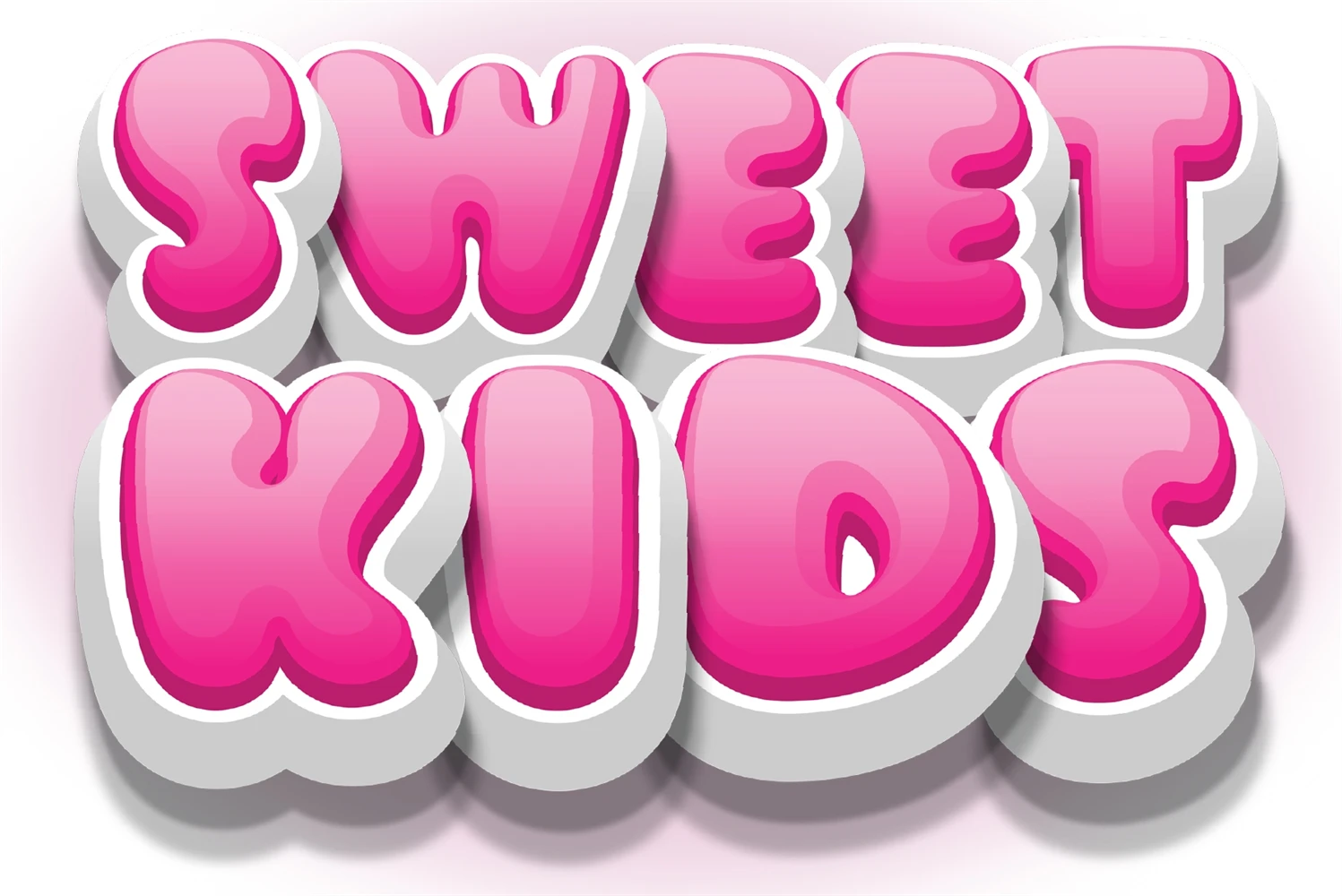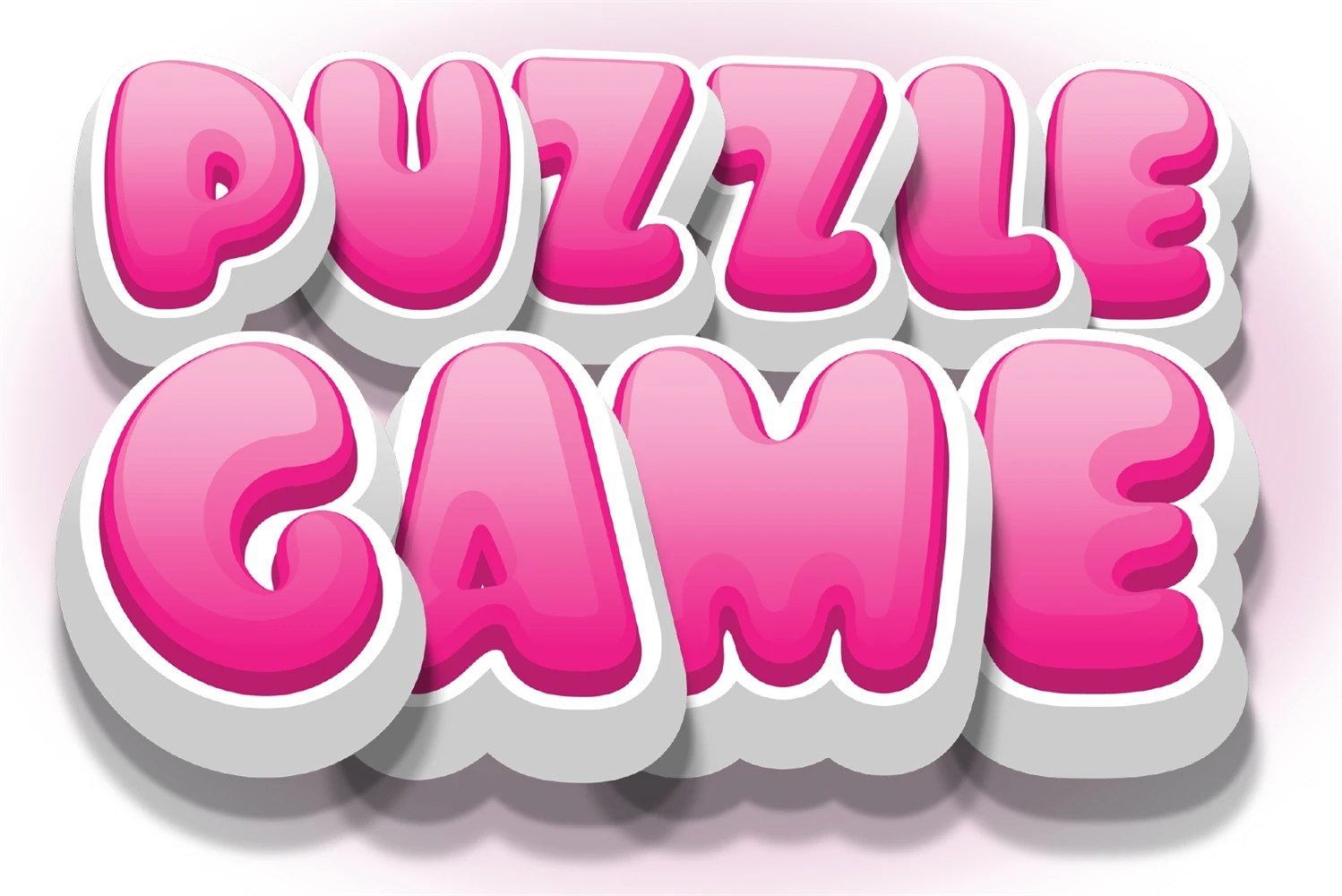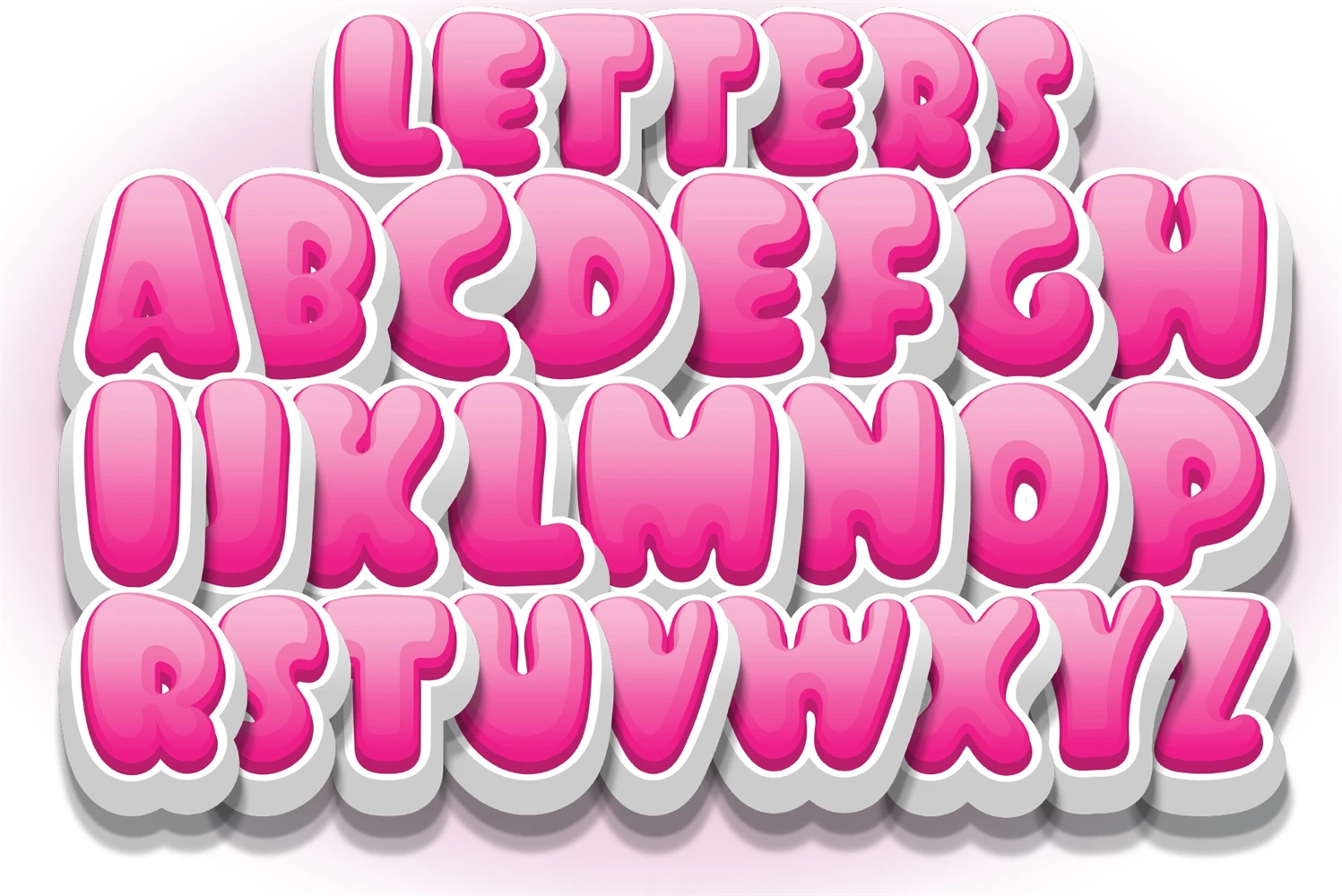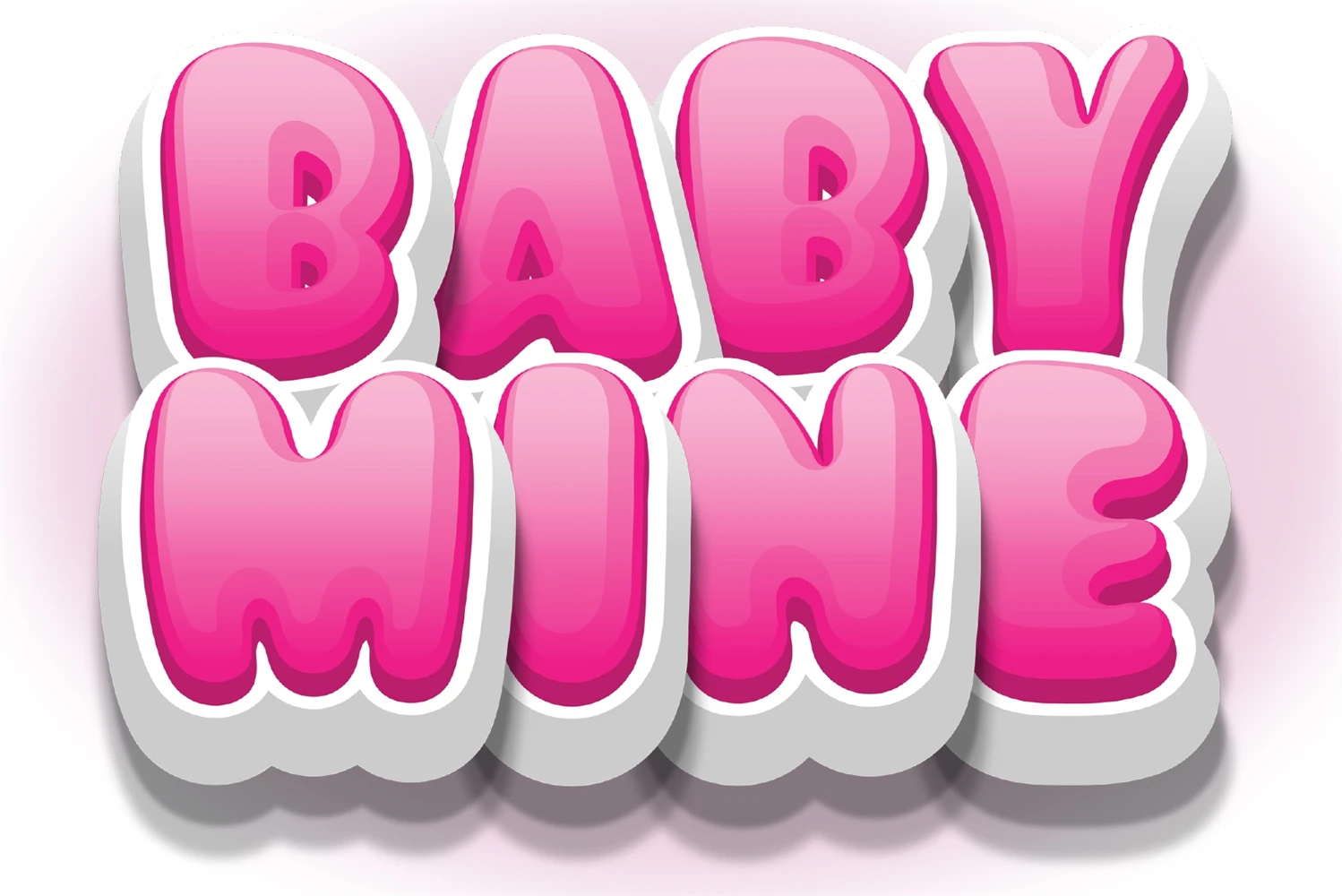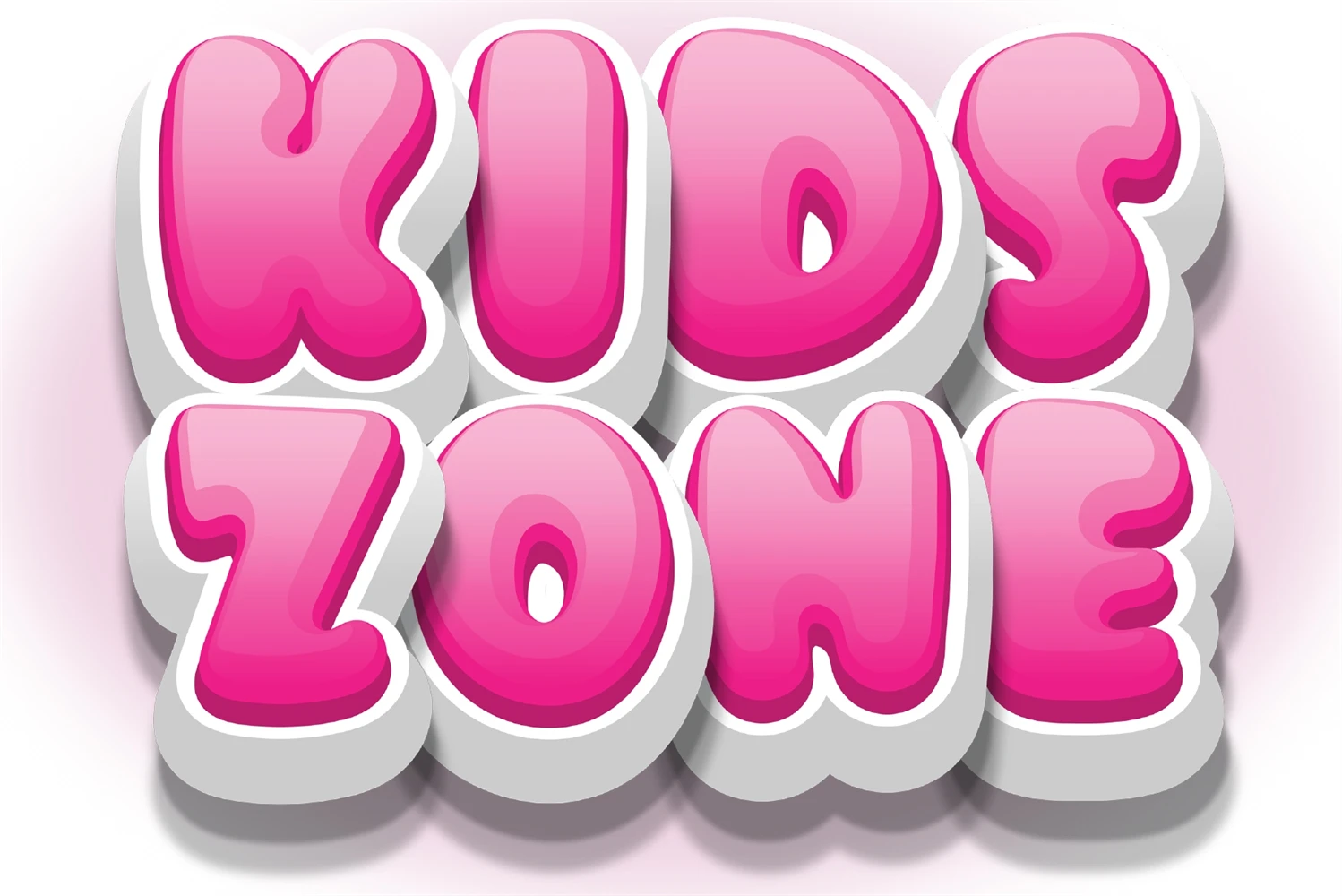
Meet Super Kids-Pinky Font, the perfect choice for adding a touch of youthful charm and playfulness to your projects. This kids' bubble font is ideal for childrens materials, invitations, and more. Make your designs as cheerful as the little ones with this delightful typeface!